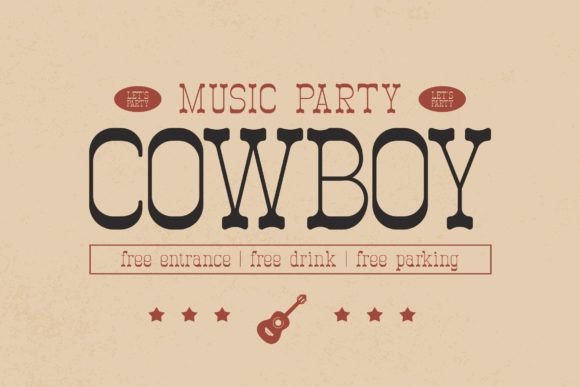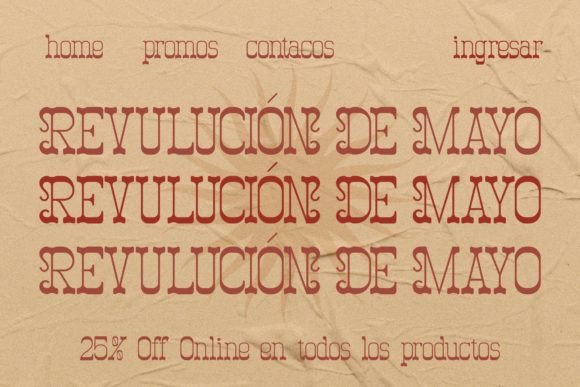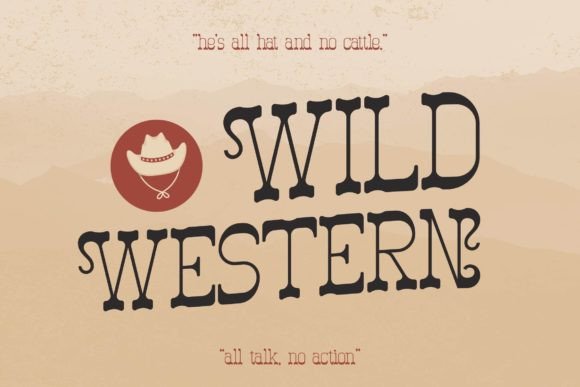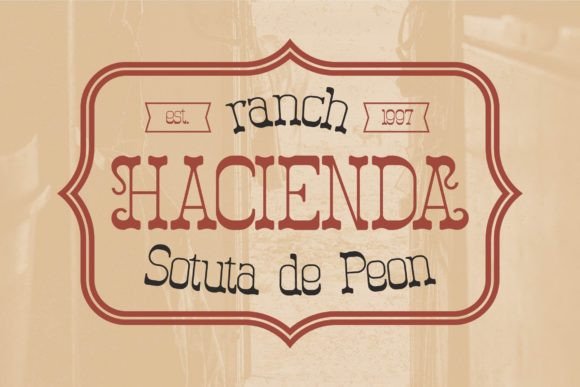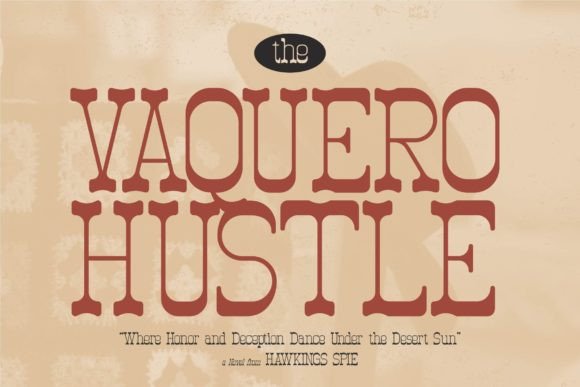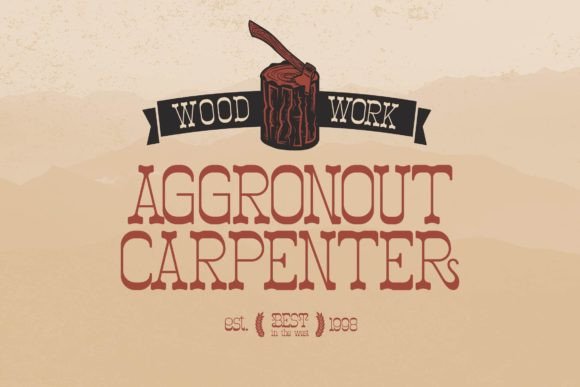
Introduction to Nuvoboy Font
Remember that moment when you’re working on a design project, and you just can’t seem to find the right font to give it that extra oomph? You’ve got your colors, your graphics, and your layout, but something’s missing. That’s where Nuvoboy Font comes in – a high-quality, Western Slab Serif font that’s sure to add a bold and sturdy touch to your creative project.
As a valuable design resource, Nuvoboy Font is perfect for designers who want to create a strong, vintage look without sacrificing readability. With its thick, blocky letters and short lines at the ends of each stroke, this font is ideal for designs that need to stand out. And the best part? You can download it for free, making it a transparent background of possibilities for your next project.
Key Features of Nuvoboy Font
- Features a unique, bold, and playful design suitable for various applications
- Includes a transparent background for seamless integration with any design
- Designed to be highly legible, even at small font sizes (scalable up to 300 DPI)
- Perfect for graphic designers, digital artists, and anyone looking for a modern font for their creative project
Honest Review: Nuvoboy Font
As a designer, I’m always on the lookout for high-quality design resources that can elevate my creative projects. Recently, I came across the Nuvoboy Font, which promised to be a game-changer. So, let’s dive into my honest review.
- ✨ The font is incredibly versatile and can be used for a wide range of creative projects, from logos to infographics.
- ✨ The transparent background makes it easy to layer and blend with other design elements.
- ⚠️ The font may not be suitable for body text, as it can be quite bold and attention-grabbing.
- ⚠️ Some users may find the font too playful or childish for certain design projects.
Overall, I’m impressed with the Nuvoboy Font’s potential to add a touch of creativity to my projects. While it may not be suitable for every design scenario, it’s a valuable resource for those who want to make a statement. If you’re looking for a high-quality, free design resource, the Nuvoboy Font is definitely worth checking out.
How to Use Nuvoboy Font
The Nuvoboy Font is a high-quality design resource perfect for any creative project. With a transparent background, this font can be easily incorporated into various design platforms.
Getting the Most Out of Nuvoboy Font
For optimal results, use Nuvoboy Font in combination with other design elements that match its style. Experiment with different font sizes, colors, and arrangements to create a visually appealing design.
The Nuvoboy Font is ideal for various creative projects, including logos, business cards, social media graphics, and advertisements. Its unique design makes it perfect for eye-catching headings and titles.